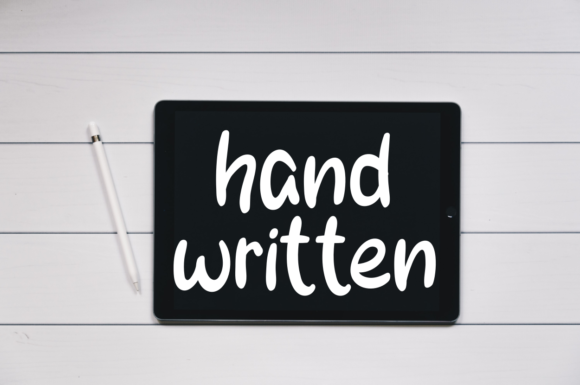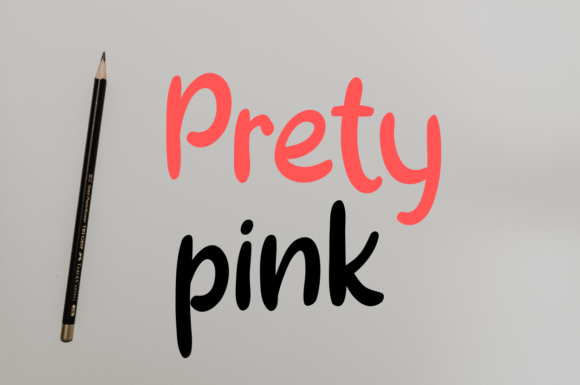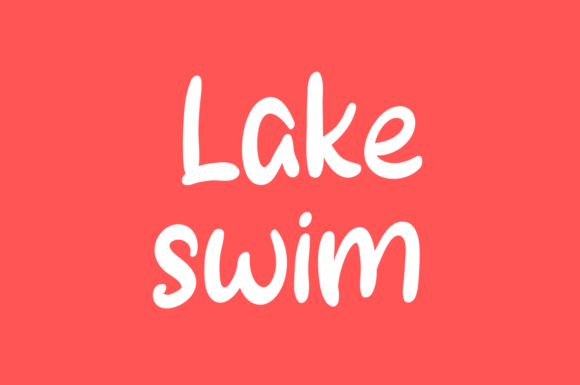
Bubble Cake Font: The Sweet Addition to Your Typography Collection
Are you on the hunt for a font that is as playful as it is versatile? Look no further than the Bubble Cake Font. This delightful display font is making waves in the design community with its simple yet interesting aesthetic. The friendly feel of Bubble Cake makes it an incredibly adaptable choice, suitable for a wide range of contexts and projects. Whether you’re a seasoned designer or a crafting enthusiast, this font is sure to become a cherished asset in your typography library.
The Charm of Bubble Cake Font
Bubble Cake Font boasts a unique charm that sets it apart from more traditional typefaces. Its design is characterized by rounded, bubbly shapes that give it a lighthearted and approachable appearance. This font’s friendly demeanor makes it perfect for projects that require a touch of whimsy and fun. From party invitations and children’s book titles to brand logos and social media graphics, Bubble Cake Font brings a playful vibe that can instantly elevate your creations.
One of the standout features of Bubble Cake Font is its incredible versatility. Despite its playful nature, this font can seamlessly fit into a variety of design contexts. Whether you’re working on a serious branding project or a more casual craft, Bubble Cake adapts beautifully. Its clean and simple design ensures that it remains legible even at smaller sizes, making it suitable for use in both headlines and body text.
Why Designers and Crafters Love Bubble Cake Font
Designers and crafters alike are drawn to Bubble Cake Font for several reasons:
- Ease of Use: The font’s simplicity ensures that it pairs well with a wide range of other typefaces and design elements, making it easy to incorporate into any project.
- Emotional Connection: The friendly and approachable feel of Bubble Cake Font helps create an instant emotional connection with the audience, making it perfect for projects aimed at younger audiences or those requiring a more personal touch.
- Customization: The unique bubbly design of this font offers ample opportunities for creative customization, allowing designers to experiment with different colors, textures, and effects.
Practical Applications of Bubble Cake Font
The practical applications of Bubble Cake Font are vast and varied. Here are a few ideas to get you started:
- Branding and Logos: Use Bubble Cake Font to create fun and memorable brand logos that stand out.
- Digital and Print Media: Perfect for titles, headings, and promotional materials in both digital and print formats.
- Crafting and DIY Projects: Add a personal touch to your crafting and DIY projects, such as handmade cards, party decorations, and more.
- Educational Materials: Make learning more engaging with Bubble Cake Font in educational materials, such as textbooks, workbooks, and activity sheets.
In conclusion, Bubble Cake Font is a delightful and versatile addition to any designer’s or crafter’s typography collection. Its simple yet interesting design, friendly feel, and wide range of applications make it an asset that can elevate any project. Whether you’re looking to add a touch of whimsy to your designs or simply need a reliable and adaptable font, Bubble Cake Font is sure to meet your needs. So why wait? Discover the sweet possibilities that Bubble Cake Font has to offer and take your designs to the next level.